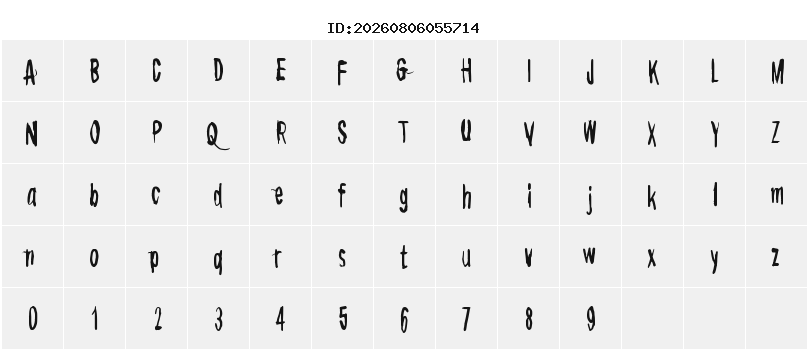
Overdose Preview
About Overdose.ttf
Overdose.ttf is a modern, elegant sans-serif font designed for ultimate readability and visual harmony. Perfect for branding, headlines, web design, and print materials.